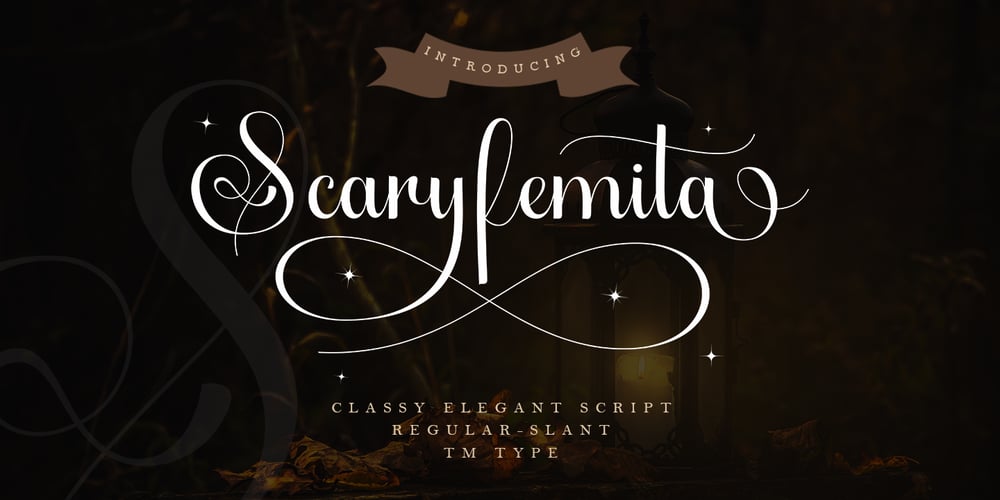
Scaryfemita
Scaryfemita font
Scaryfemita Font Family was designed by Teuku Bustami and published by TM Type. Scaryfemita contains 2 styles and family package options. Scaryfemita – Classic Elegant Copperplate Calligraphy Script Font – Beauty Classic Luxury Royal FontScaryfemita comes with glyph variations such as Ligature, Alternate, and Swash. You can combine it to make a perfect typography design. It is perfect for your upcoming projects such as luxury logo and branding, classy editorial design, woman’s magazines, cosmetic brands, fashion promotional, art gallery branding, museum, boutique branding, stationery design, blog design, modern advertising design, card invitation, art quote, home decor, book/cover title, special events and any more.This font is PUA encoded, which means you can access all of the glyphs and swashes with ease!